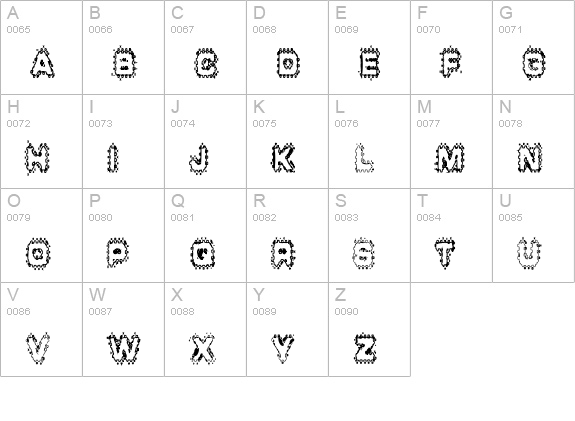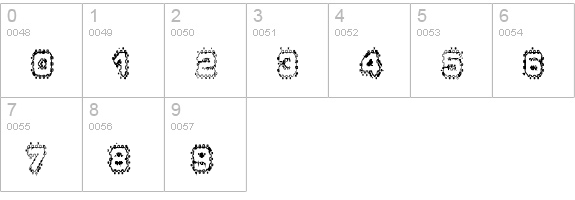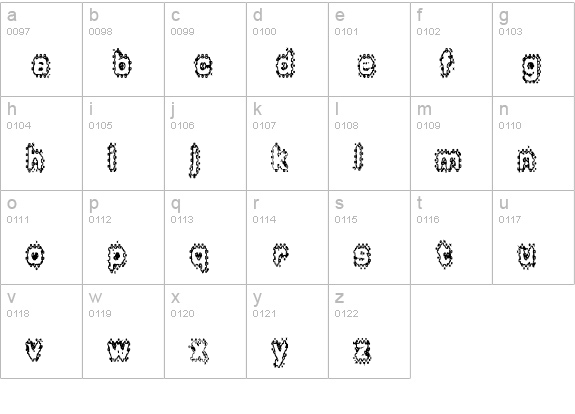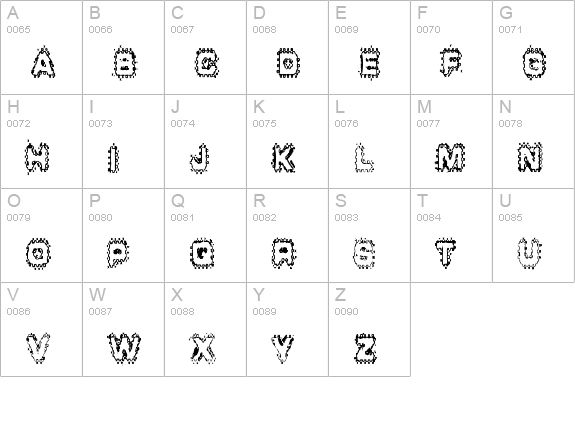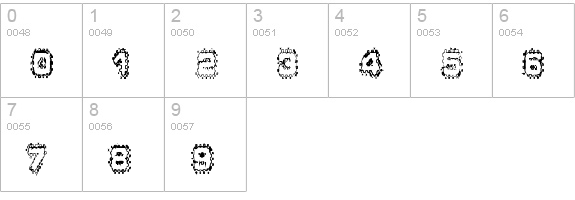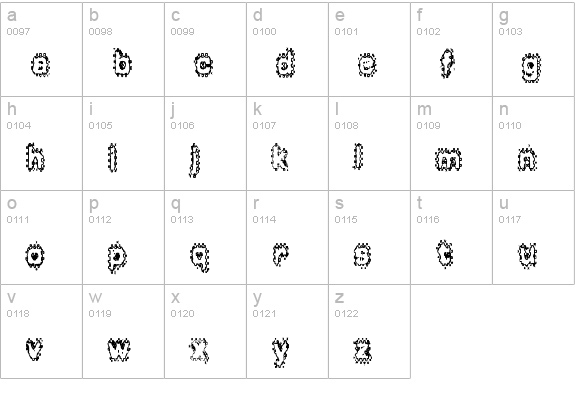
Introducing Grunge Puddles font, a bold and edgy typeface that exudes a rugged charm with its distressed and weathered appearance. This font captures the essence of urban grunge and street style, making it perfect for projects that require a rough and rebellious touch. Each letter of Grunge Puddles font seems to have been splattered with ink, creating a unique and raw aesthetic that is sure to make your designs stand out. What's more, Grunge Puddles font is available for free download at FontsMarket.com. You can easily add this versatile typeface to your collection and use it for various creative projects without any cost. Whether you're working on posters, album covers, apparel designs, or any other project that calls for a touch of grunge, Grunge Puddles font is the perfect choice. Embrace the grit and attitude of the urban streets with this free font and let your designs make a bold statement.